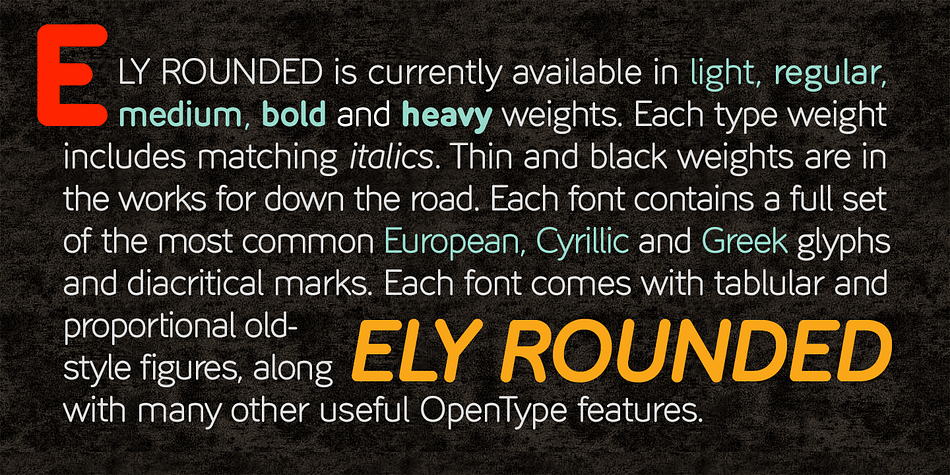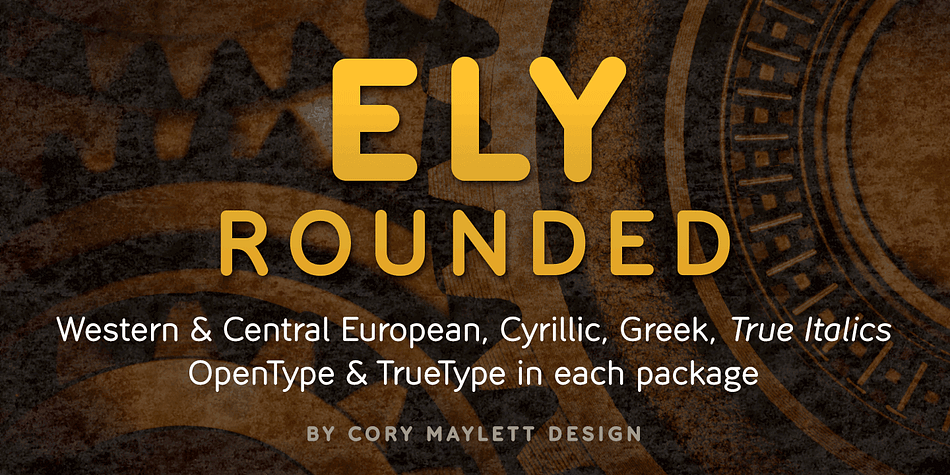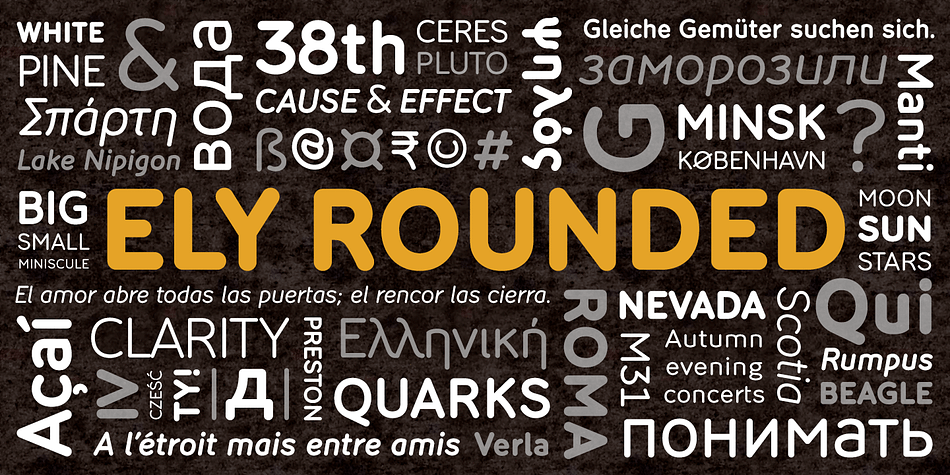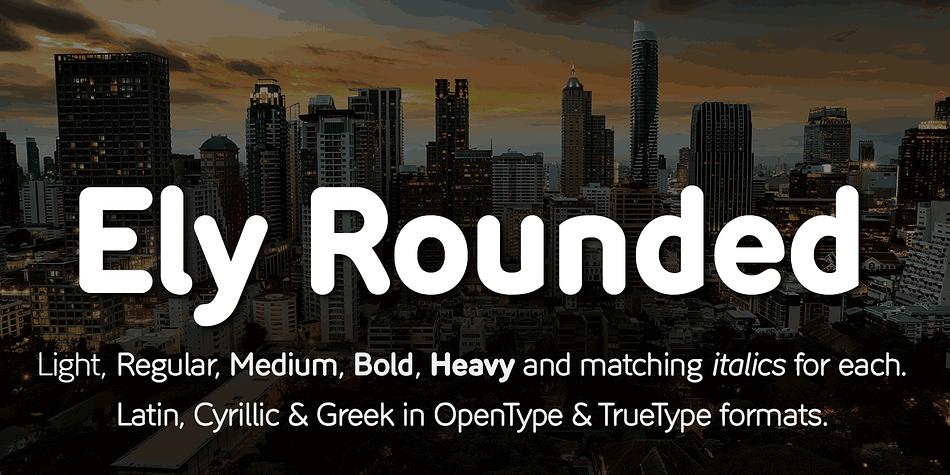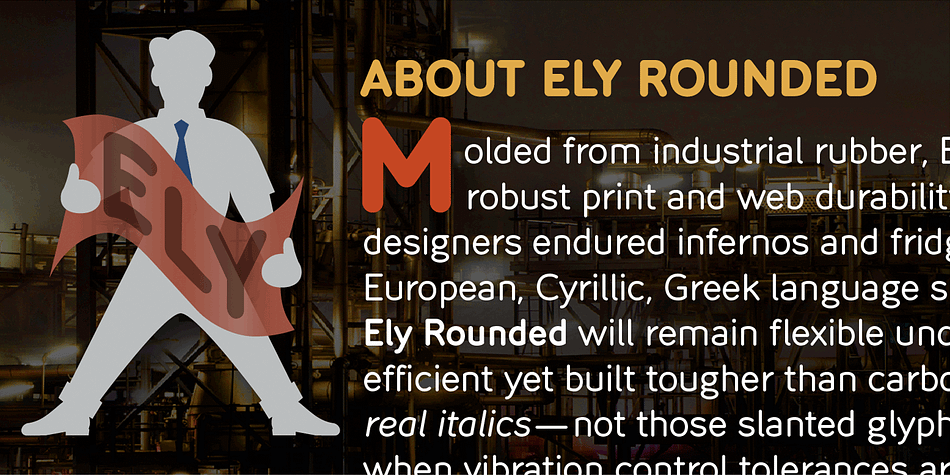
Designed by Cory Maylett, Ely Rounded is a sans serif font family. This typeface has ten styles and was published by Cory Maylett Design.
Smooth and shapely without a trace of fat. A seductively handsome devil without the attitude. This typeface wears a tie at the office, but keeps a pair of sneakers and a beach volleyball in the car.
Ely Rounded is a family of five weights plus matching italics (with more on the way). Each weight includes extended language support for European, Cyrillic and Greek. OpenType features include fractions, tabular and proportional figures plus a few ligatures thrown in for good measure. This is a typeface that works well from text sizes to billboards, and is equally at home in print or on the web.